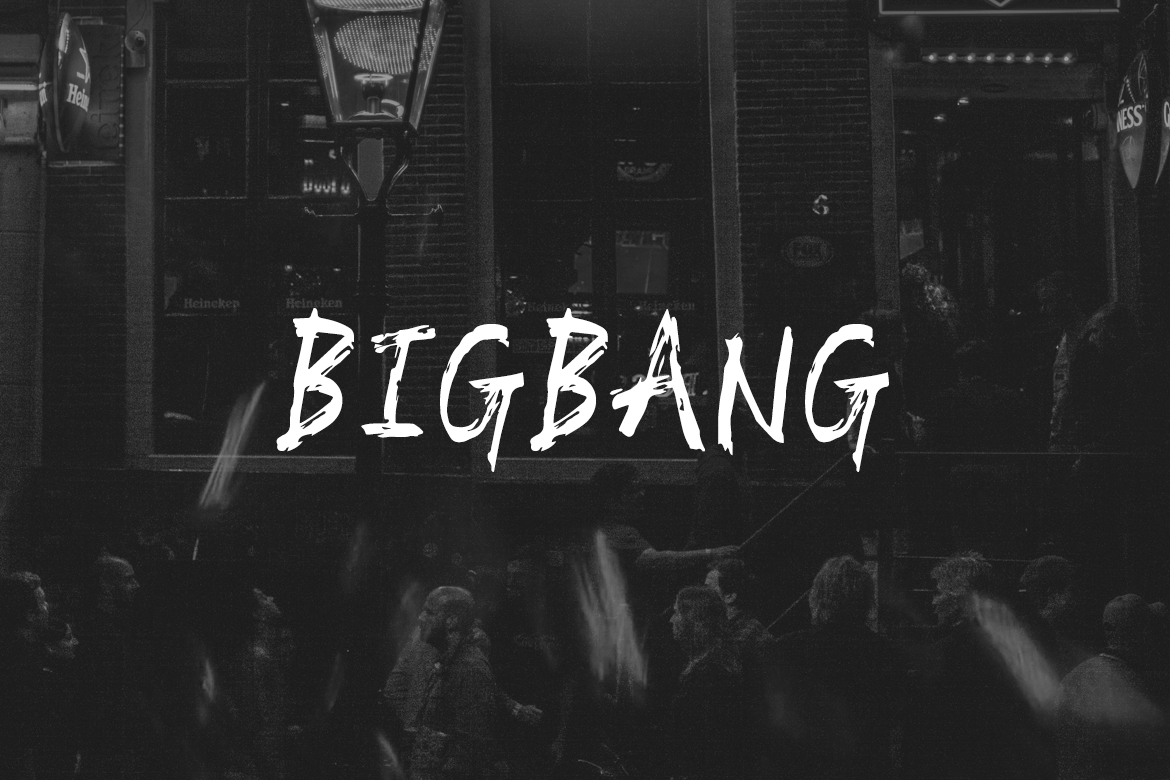
The unique handmade custom brush font suitable for any design needs : branding, logos, handwritten quotes, product packaging, merchandise, blog design, modern advertising design, invitation, Art Quote, Home decor, Book/Cover Title, Invitation, special events, birthday, custom mug, pillow, t-shirts, any brush lettering design needs and more.
This is a single weight font having all-caps along with small caps as lowercase letters. The pack contains OTF, TTF and Web Fonts (all EOT, SVG, TTF, WOFF, WOFF2 everything is included).